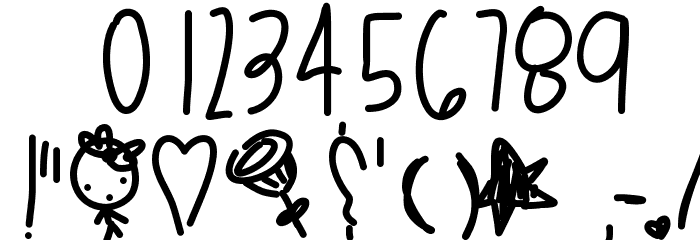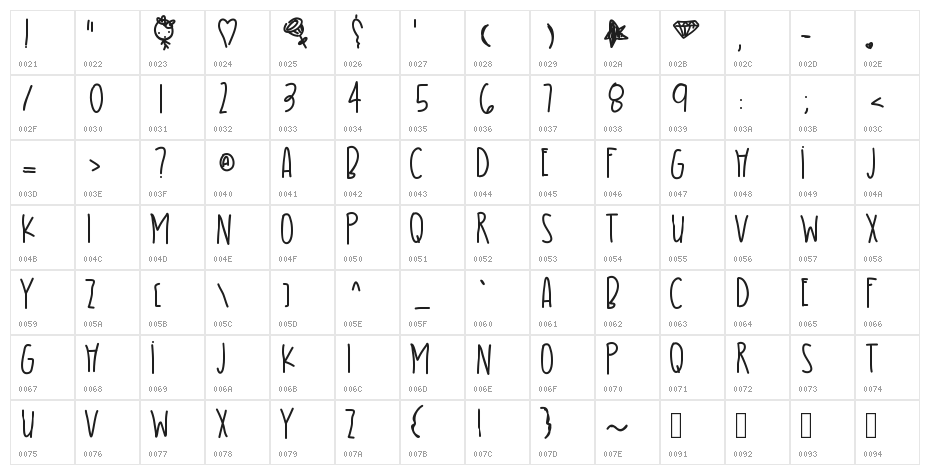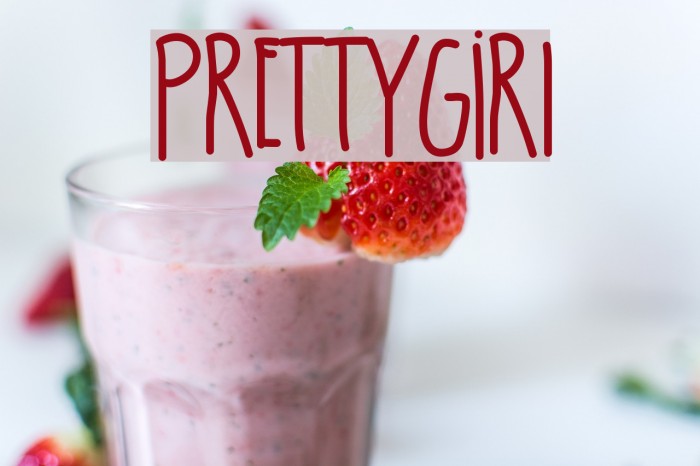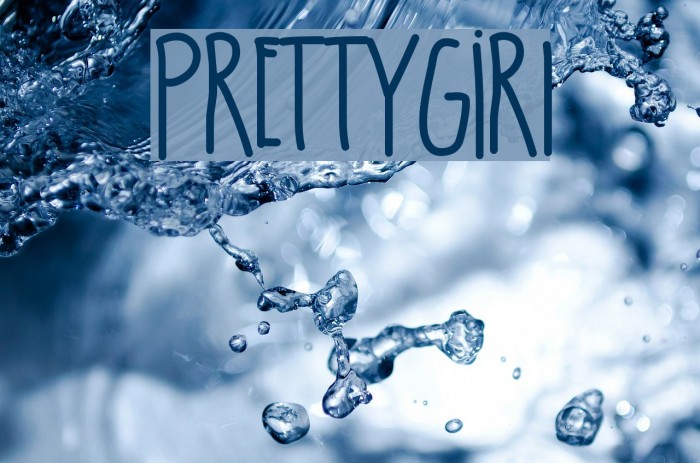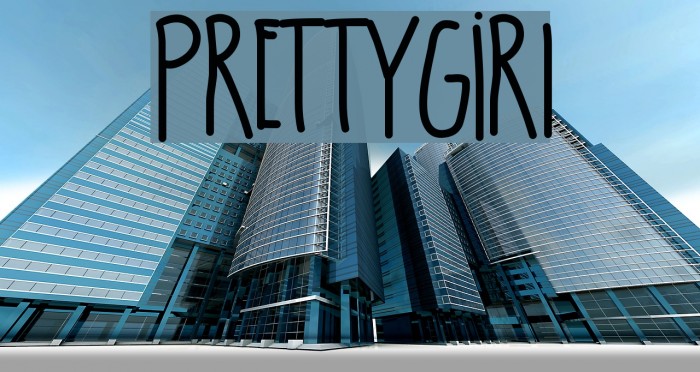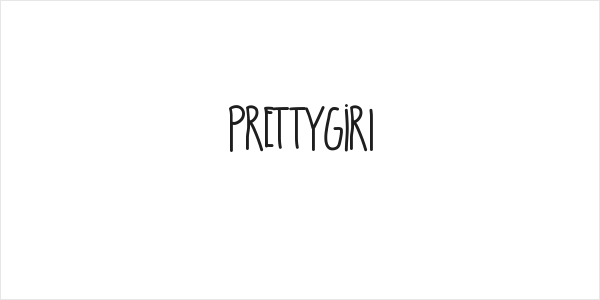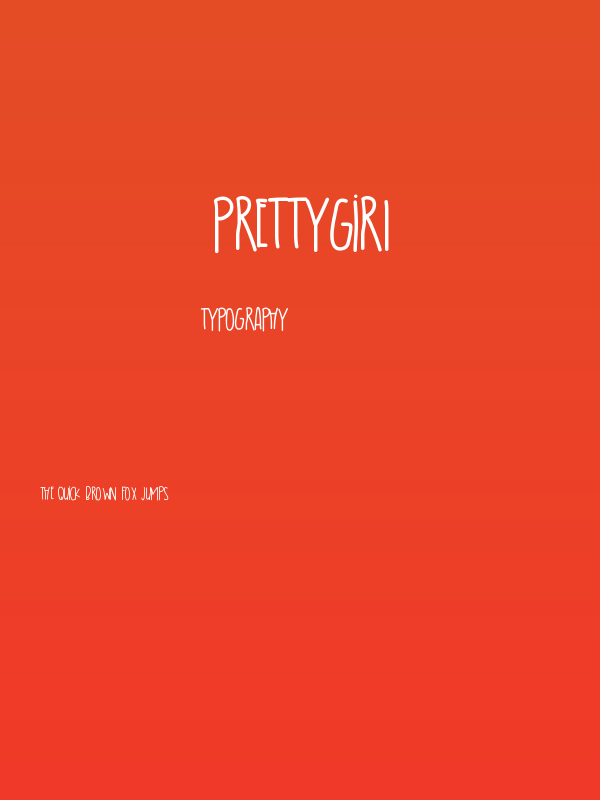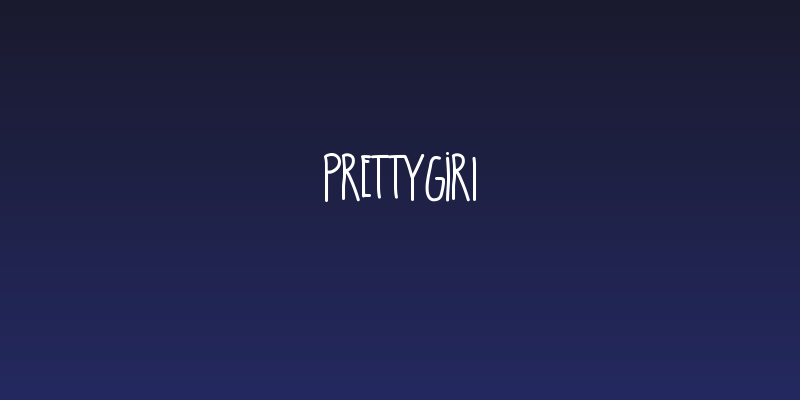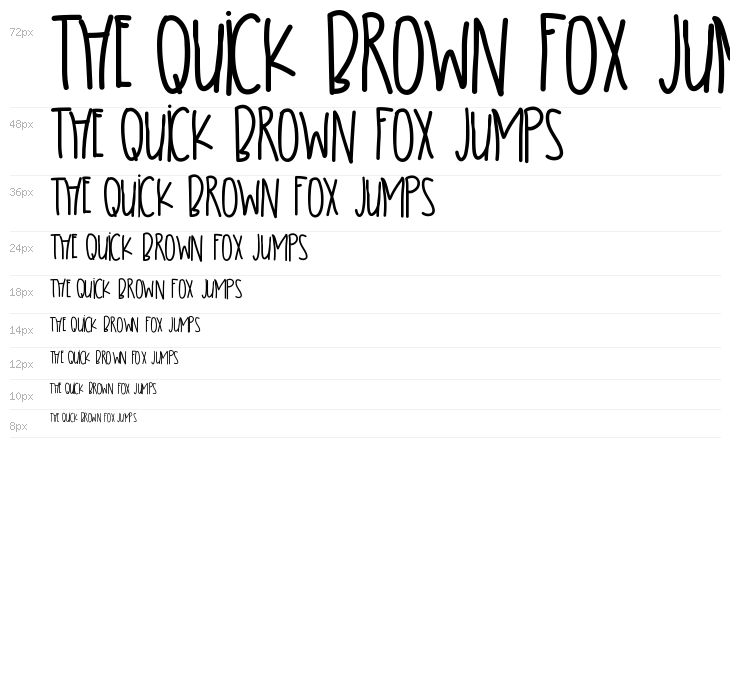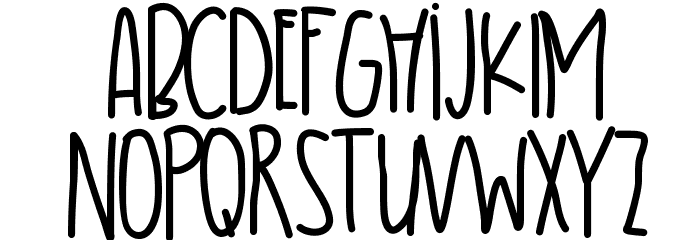
PrettyGirl Font
PrettyGirl Description
This playful and whimsical font features tall, narrow letters with a handwritten style that exudes a casual and friendly vibe. The characters are slightly uneven, adding to the charm and personality of the font. The uppercase and lowercase letters maintain a consistent style, with rounded edges and a smooth flow. Numbers and special characters are included, matching the overall aesthetic. The font is ideal for projects that require a personal touch, such as greeting cards, children's books, or playful branding.
| Overall Style | Whimsical |
| Use Case | Logos, Headlines, Casual Text |
| Proposed Projects | Ideal for greeting cards, children's books, playful branding, and casual invitations. |